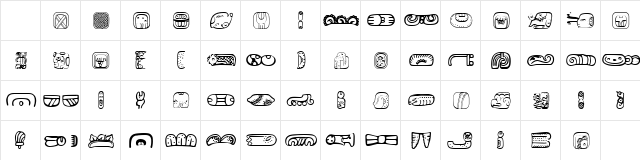
Complete MesoAmerica Dings Three Regular glyph index. Displaying only characters natively supported by MesoAmerica Dings Three Regular font.
MesoAmerica Dings Three is a composed and adaptable typeface that performs quietly and consistently across a wide range of design contexts.